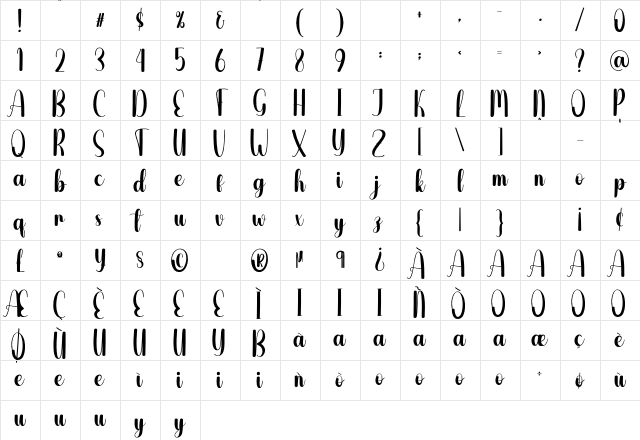
Oats Regular
Design Context for Oats
Oats is a composed and adaptable typeface that performs quietly and consistently across a wide range of design contexts.